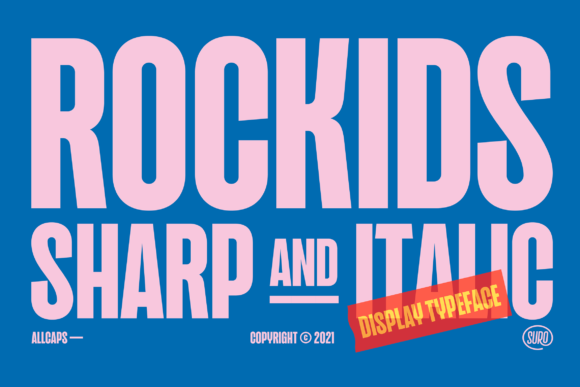
Welcome to a world of boundless creativity, where your words take on a life of their own. Introducing Rockids Sharp Font, the ultimate display font designed to ignite your imagination and leave a lasting impression. Crafted with precision, this bold and thick lettered font transcends the ordinary, elevating your creations to new heights.
Step into a realm of endless possibilities, where Rockids Sharp Font becomes your trusty companion. Its versatile nature makes it the perfect choice for any project, from captivating Christmas posters that spread holiday cheer to stunning social media graphics that demand attention. Unleash your inner artist and let the sharp, crisp lines of Rockids Sharp Font guide you towards design greatness.
With Rockids Sharp Font at your fingertips, you'll discover a font that commands attention and sparks conversations. Whether you're a seasoned designer or just starting your creative journey, this font is your gateway to creating designs that resonate and leave an unforgettable mark.
Don't settle for ordinary fonts that blend into the background. Embrace the boldness of Rockids Sharp Font and watch your creations come alive. Its distinct character and unwavering presence will transform your words into visual masterpieces that capture hearts and leave a lasting impression.